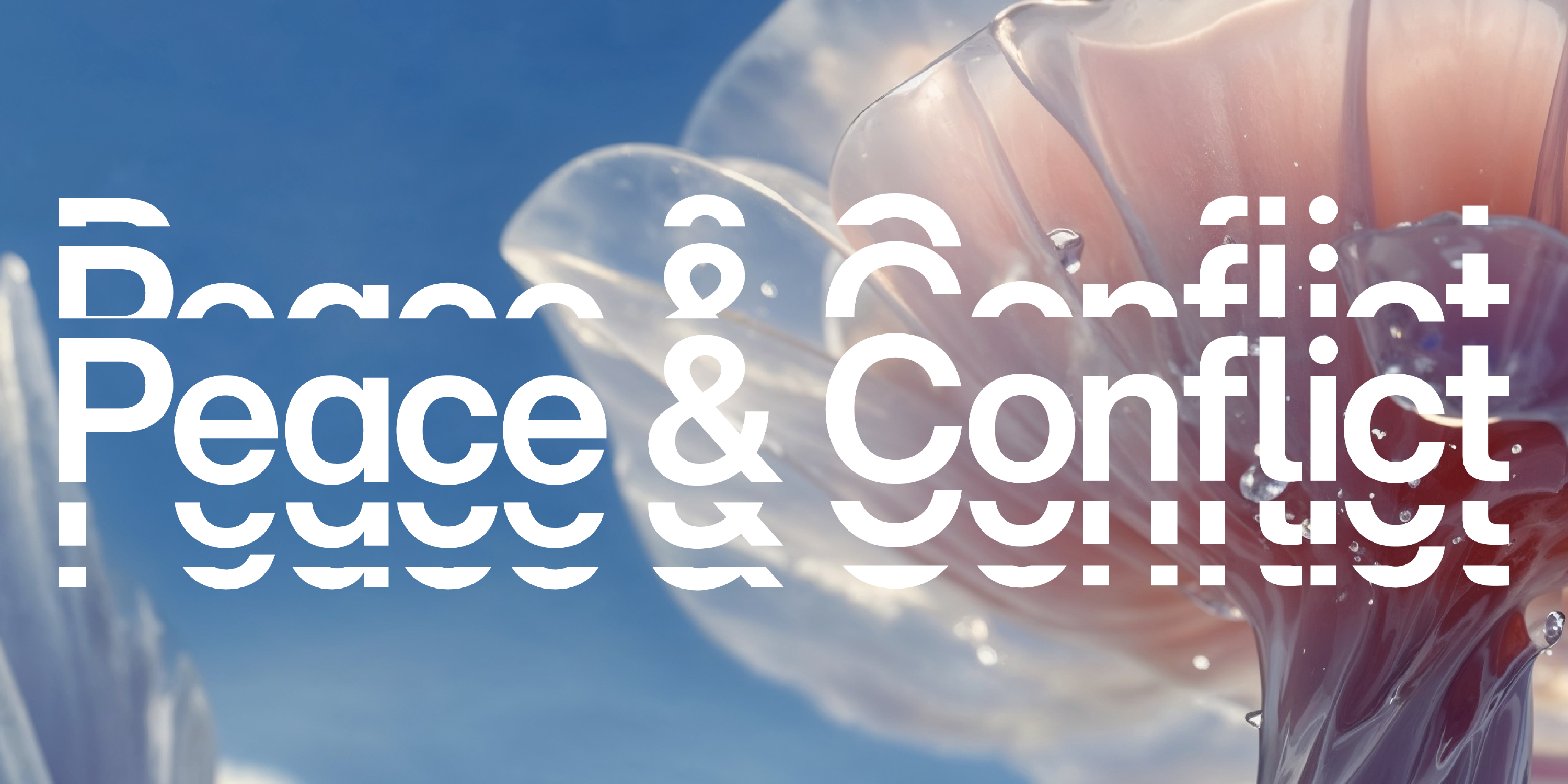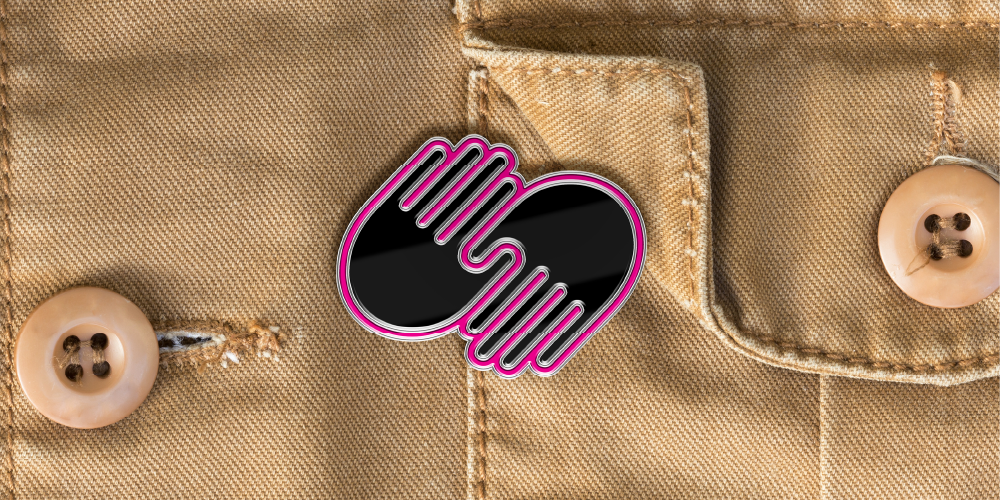
Monotype Releases New Re:Vision Chapter Exploring Design, Peace, and Conflict
WOBURN, Mass., December 29, 2025 — Monotype Imaging Inc., a global leader in type and technology, has released Peace & Conflict, the final chapter in its Re:Vision: Type Trends 2025 program, an ongoing initiative that examines how social, cultural, and technological shifts influence the way typography and visual communication are used.
The project examines how symbols and visual language are used — and understood — during periods of global tension. Rather than taking a position or offering solutions, Peace & Conflict brings together a set of practice-led explorations that consider what design can do when conflict shapes public conversation. The focus is on observation, reflection, and the realities of working with symbols in complex, often fragile contexts.
The work was developed by the Monotype Studio, led by Executive Creative Type Director Phil Garnham, with consultation from Rathna Ramanathan, Provost of Central Saint Martins and Executive Dean of Global Affairs at UAL. Perspectives informed by lived experience were contributed by VikaVita, a Kyiv-based lettering and design studio working in Ukraine, bringing visuals to life through design under extraordinary circumstances.
“This wasn’t about making a statement,” said Garnham. “It was about paying attention — to how symbols actually behave in the world, and what designers notice when they slow down and really look.”
“By designing universal languages that honor our differences while celebrating our shared humanity, we can transform conflict into dialogue,” said Ramanathan. “This is not just about creating symbols, but about cultivating the common ground that reminds us we are all kin, all connected, all responsible for the world we leave behind.”
“When you’re living with conflict, language can start to feel heavy, or even fail you,” said VikaVita. “Sometimes a sign, a small gesture, or a simple mark can express what people are feeling when words are hard to find. For us, this work is about staying human, even when everyday life is shaped by uncertainty.”
Allkin, a symbol to convey peaceful intent and a sign of unity.
A central outcome of the project is Allkin, an open, hand-based symbol system created to support communication across languages and cultures. The system includes 195 hand gestures, aligned with the number of UN member and observer states, and addresses everyday human needs, social signals, emotional states, and references to conflict and peace.